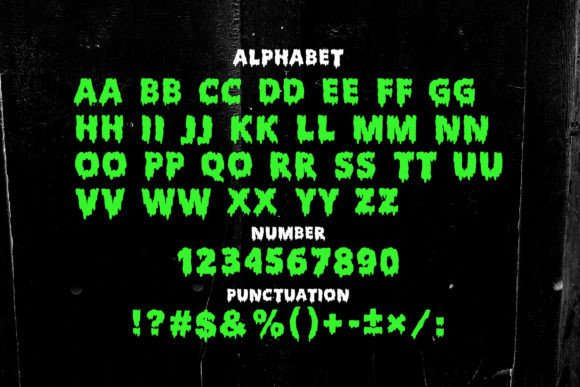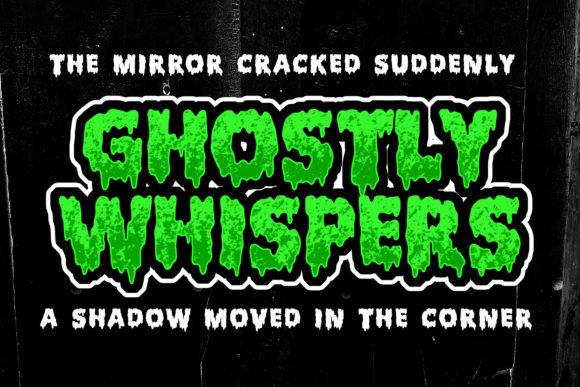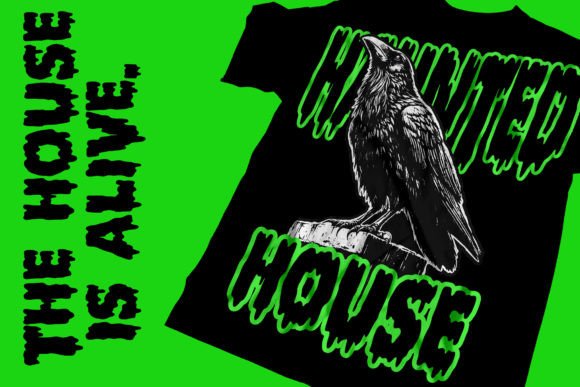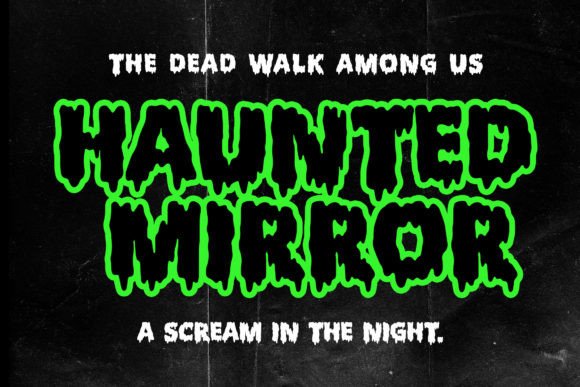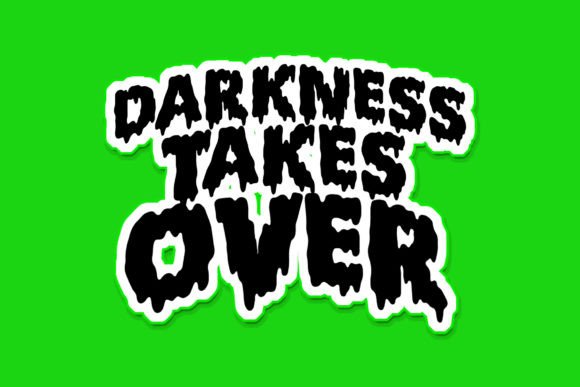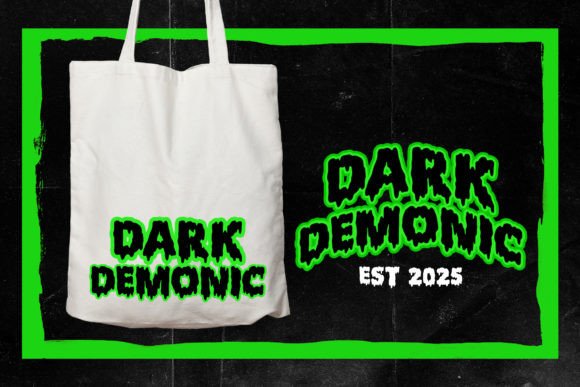
Unveiling the Death Secrets Font: A Spooky Addition to Your Halloween Celebrations
As the spookiest time of the year approaches, designers and crafters are on the lookout for the perfect typography to add a chilling touch to their Halloween projects. If you’re looking for a font that embodies the essence of Halloween, look no further than the Death Secrets Font. In this article, we’ll dive into the world of Death Secrets Font, exploring its features, uses, and how it can elevate your Halloween designs.
What is Death Secrets Font?
Death Secrets Font is a unique and eerie typeface designed to capture the spirit of Halloween. Its creepy and mysterious appearance makes it perfect for creating spooky designs, from invitations and posters to social media graphics and more. The font’s distressed texture and irregular shapes evoke a sense of foreboding, adding an extra layer of thrill to your Halloween projects.
“Death Secrets: A Halloween Horror Melting” – The Inspiration Behind the Font
The concept of Death Secrets Font is inspired by the idea of “Death Secrets: A Halloween Horror Melting,” a spooky event where scary secrets come to life on Halloween night. As the night unfolds, the mysteries slowly melt away, revealing dark and terrifying surprises. This event is a night filled with fear, chilling tales, and eerie surprises that will haunt you long after it’s over. The Death Secrets Font brings this eerie atmosphere to life, allowing designers and crafters to create hauntingly beautiful designs.
Features of Death Secrets Font
The Death Secrets Font boasts several features that make it a standout addition to your Halloween design toolkit:
- Unique and Eerie Design: The font’s creepy appearance is sure to send shivers down the spine.
- Distressed Texture: The font’s texture adds a layer of realism, giving your designs a worn and aged look.
- Irregular Shapes: The font’s irregular shapes create a sense of unease, perfect for capturing the essence of Halloween.
- High-Quality Design: The font is designed with high-quality craftsmanship, ensuring it looks great in any design.
Using Death Secrets Font in Your Halloween Designs
The Death Secrets Font is versatile and can be used in a variety of Halloween designs, including:
- Invitations: Create spooky invitations for Halloween parties or events.
- Posters: Design eye-catching posters for Halloween-themed movies, events, or attractions.
- Social Media Graphics: Add a touch of Halloween spirit to your social media graphics, from Facebook posts to Instagram stories.
- Crafting Projects: Use the font in your crafting projects, such as making spooky signs, banners, or decorations.
Tips for Designing with Death Secrets Font
To get the most out of the Death Secrets Font, follow these design tips:
- Pair with Complementary Fonts: Pair the Death Secrets Font with complementary fonts to create visual interest.
- Experiment with Colors: Try out different color schemes to find the perfect combination for your design.
- Add Texture and Effects: Experiment with textures and effects to enhance the font’s distressed look.
The Death Secrets Font is a unique and spooky addition to any Halloween design project. Inspired by the idea of “Death Secrets: A Halloween Horror Melting,” this font is sure to add a chilling touch to your designs. With its creepy appearance, distressed texture, and irregular shapes, it’s perfect for designers and crafters looking to create hauntingly beautiful designs. So, don’t be afraid to get creative and experiment with the Death Secrets Font this Halloween season!